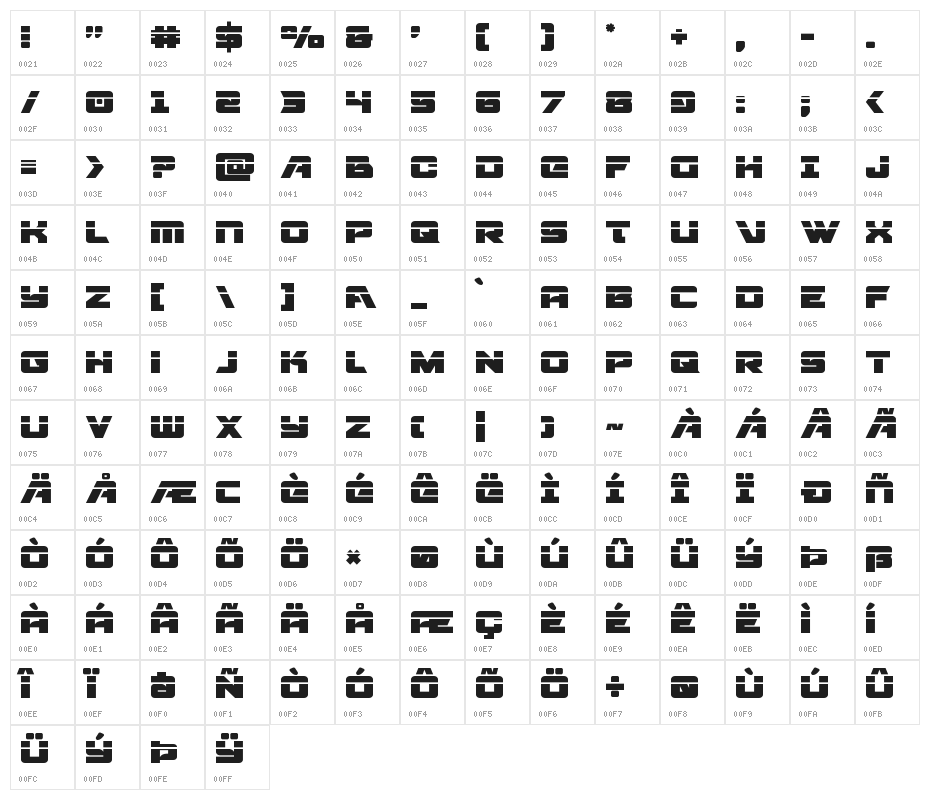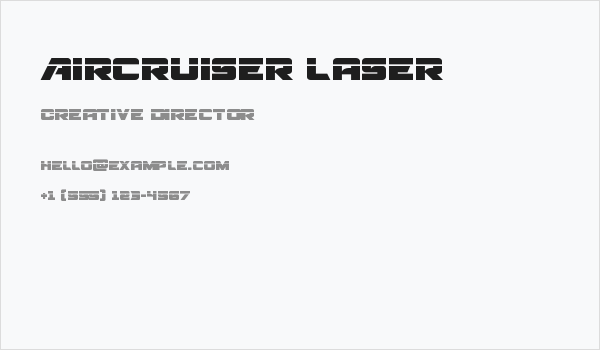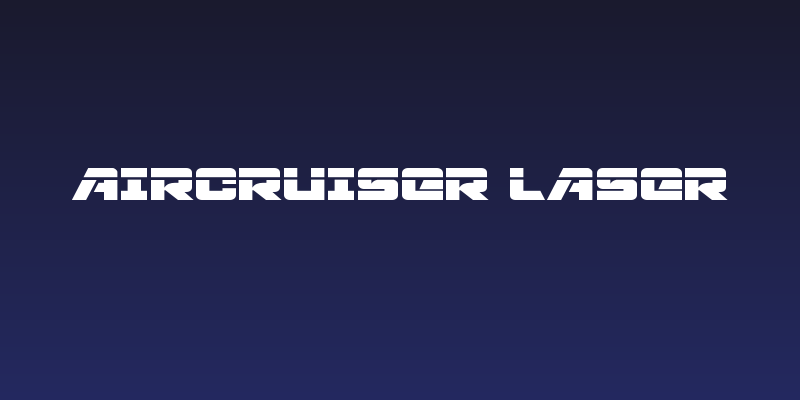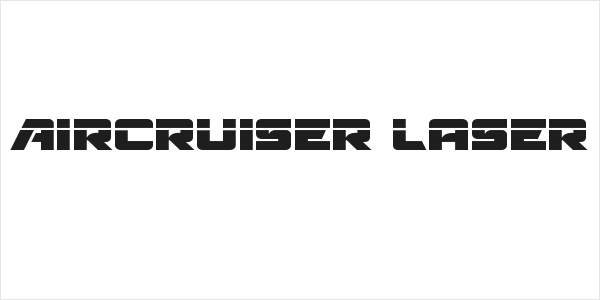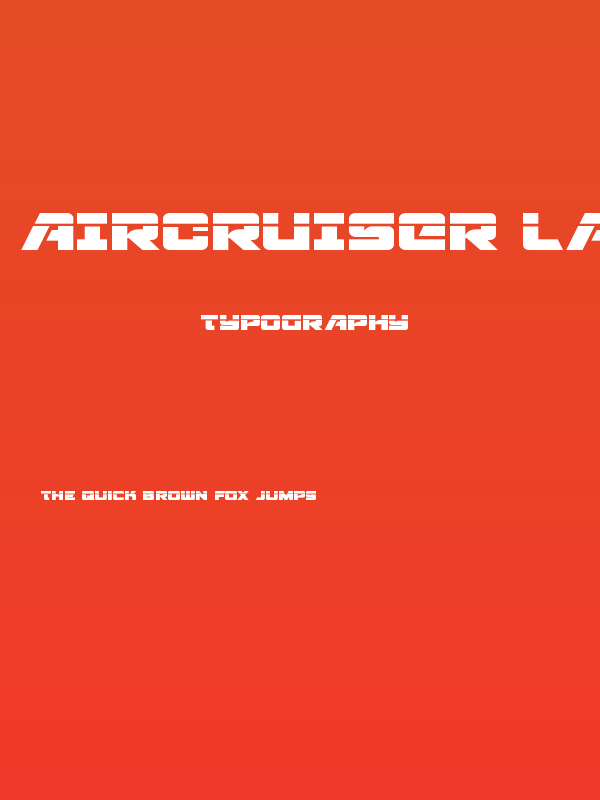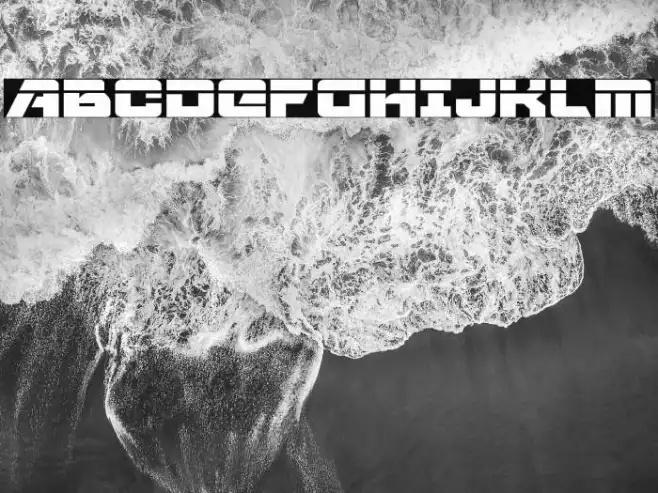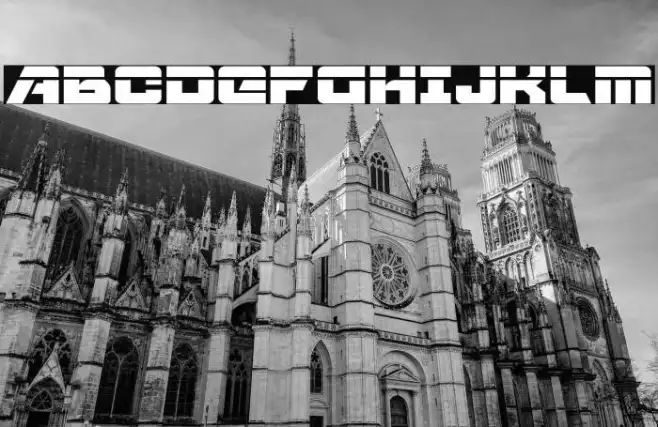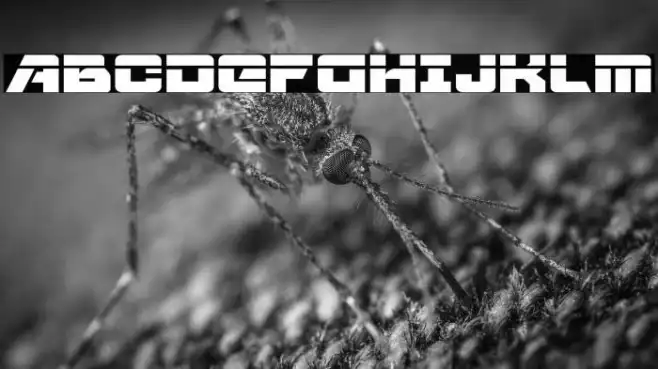
Aircruiser Laser Font
Aircruiser Laser Description
This font features a bold and futuristic design with a strong geometric influence. The characters are constructed with sharp angles and straight lines, giving it a mechanical and industrial feel. The uppercase letters are particularly striking, with a blocky appearance that suggests strength and stability. The lowercase letters maintain the same angular style, ensuring consistency throughout the typeface. Numbers and special characters are equally bold and match the overall aesthetic. This font is ideal for projects that require a modern and edgy look, such as technology branding, video game titles, or sci-fi themed designs.
AIRCRUISER-LASER1 UPPERCASE
AIRCRUISER-LASER1 LOWERCASE
AIRCRUISER-LASER1 OTHER CHARS
| Overall Style | Futuristic, Industrial |
| Proposed Projects | Ideal for technology branding, video game titles, sci-fi themed designs, and modern posters. |